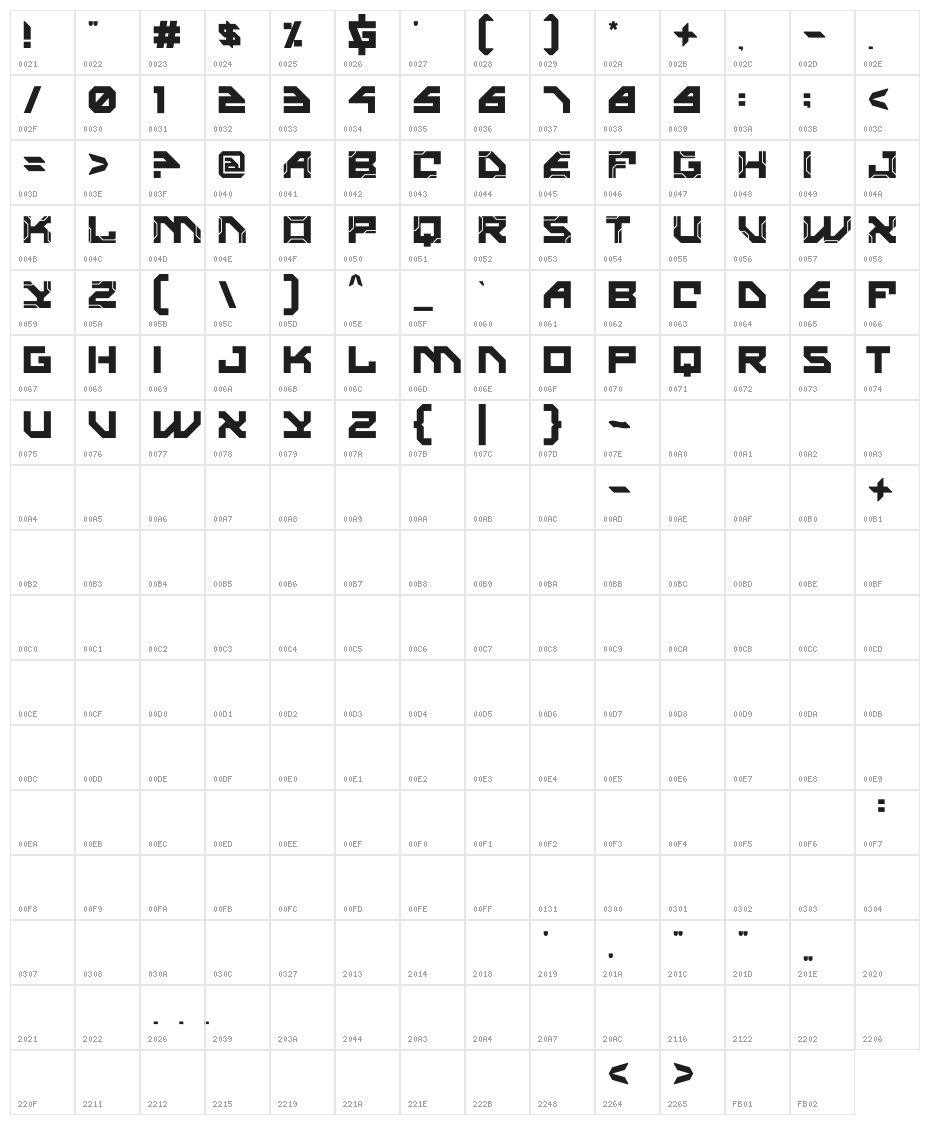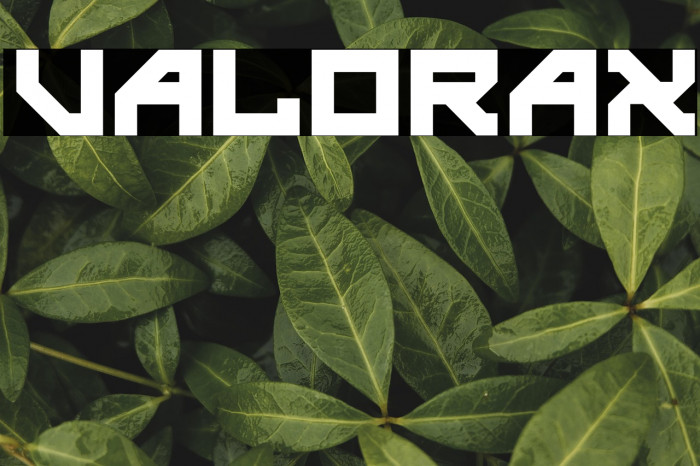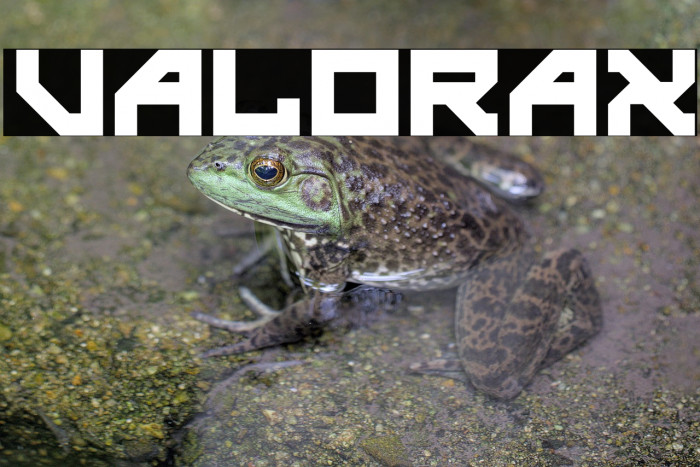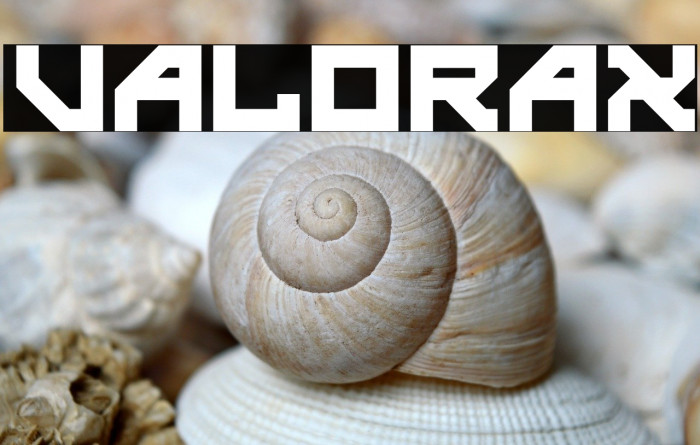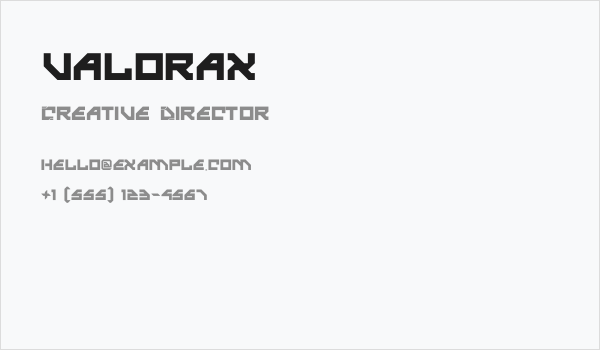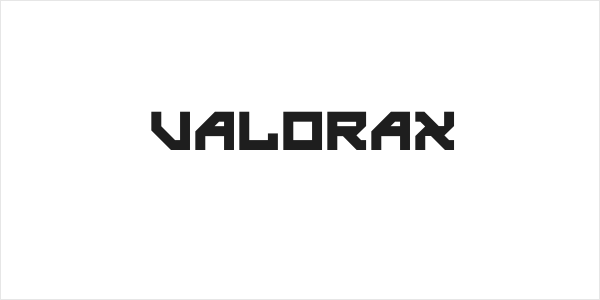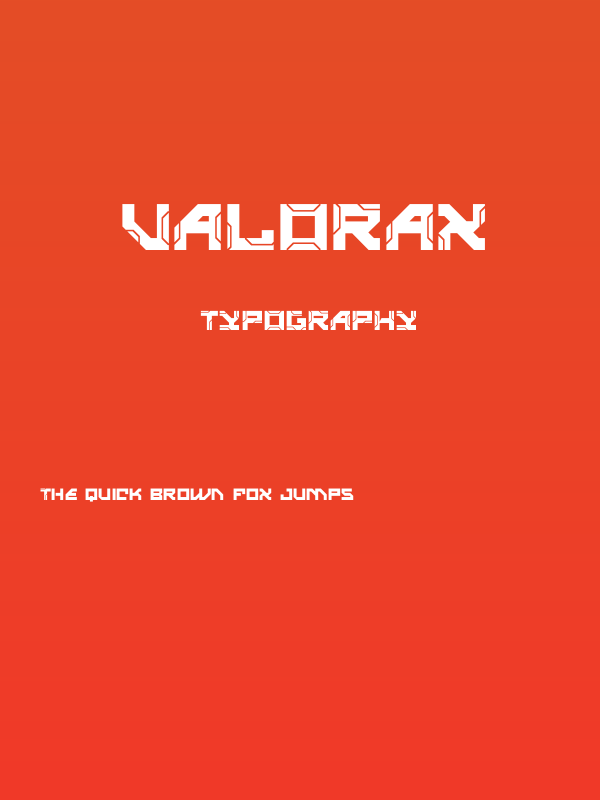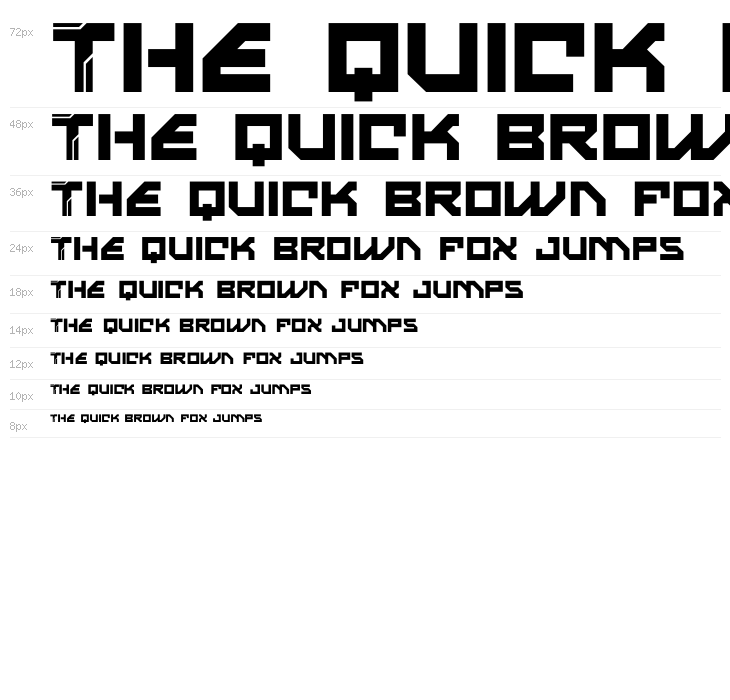
valorax Font
valorax Description
A bold, geometric font with angular shapes and a futuristic style, featuring sharp edges and a blocky appearance.
| Overall Style | Futuristic, Decorative |
| Proposed Projects | Tech branding, video game titles, sci-fi posters. |